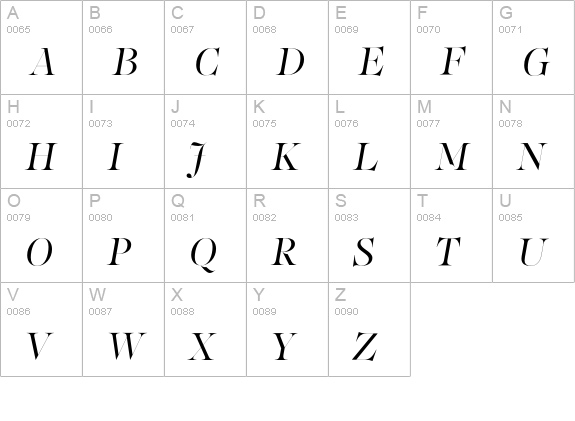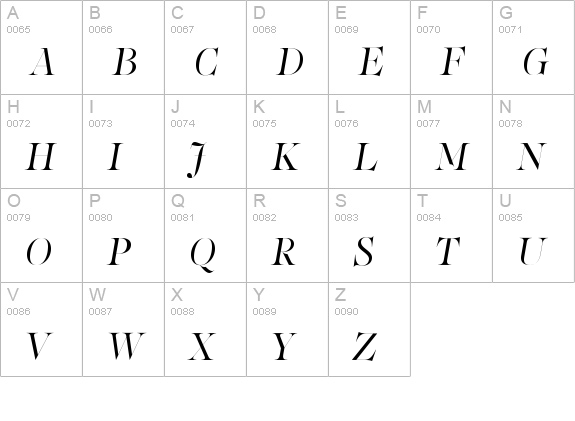
PFRegalFinessePro-Italic is a distinctive, italic variant in the PFRegalFinessePro typeface family \xE2\x80\x94 well suited to design and typography projects.
Introducing PFRegalFinessePro-Italic font - a sophisticated and elegant typeface that exudes luxury and finesse. This italic variant of PFRegalFinessePro features delicate curves and flowing lines, making it perfect for adding a touch of class to your projects. Its timeless design and effortless style make it a versatile choice for a wide range of applications, from branding materials to invitations and more. And the best part? PFRegalFinessePro-Italic font is available for free download at FontsMarket.com! Simply visit the website to access this exquisite font and elevate your designs with its premium quality and exquisite charm. Don't miss out on the opportunity to enhance your creations with the beauty and sophistication of PFRegalFinessePro-Italic font - download it today and let your creativity shine!